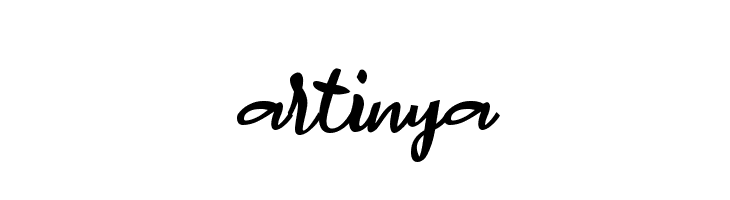
A graceful script font with fluid, flowing strokes and elegant loops.
A bold, cursive script font with a dynamic and flowing style.
A dynamic and elegant script font with flowing, cursive letterforms.